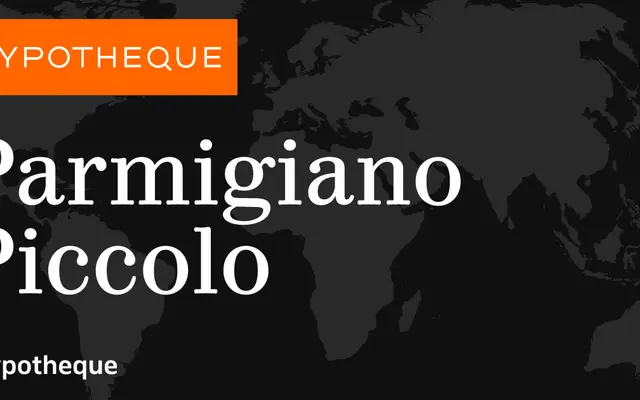
Parmigiano Piccolo
An optical-size serif system from Typotheque, with Piccolo tuned specifically for demanding small-size setting across six weights.
Part of the broader Parmigiano system, Piccolo is designed for small text sizes where contrast and spacing must compensate for optical reduction. Six weights run from Thin to Black, each with a matching italic, giving significant range across a single optical cut. The system as a whole spans Piccolo, Caption, Text and Headline, with a variable version of the Text cut also available, making it a thorough solution for multi-size editorial and book typography.
Parmigiano is a serif family with optical size variants ranging from Piccolo (small text) through Caption, Text and Headline, placing it in the transitional serif tradition with high contrast and fine detailing suited to small sizes.